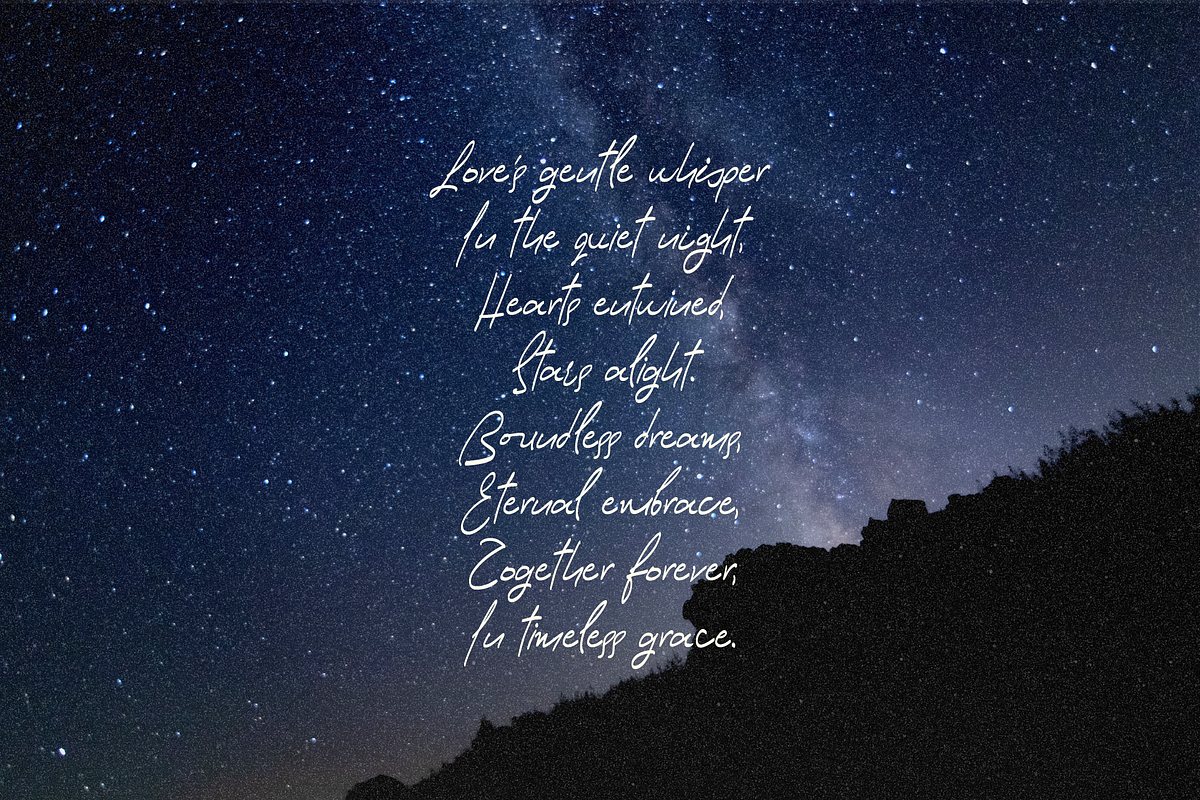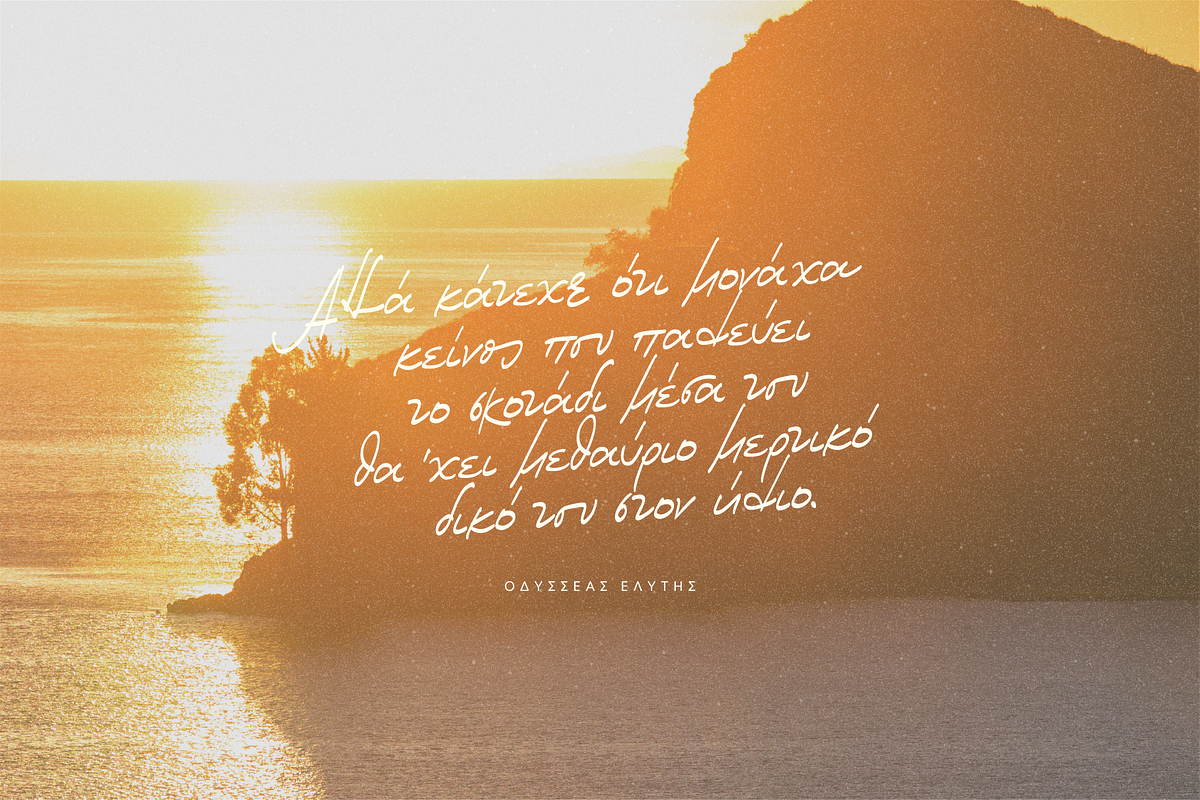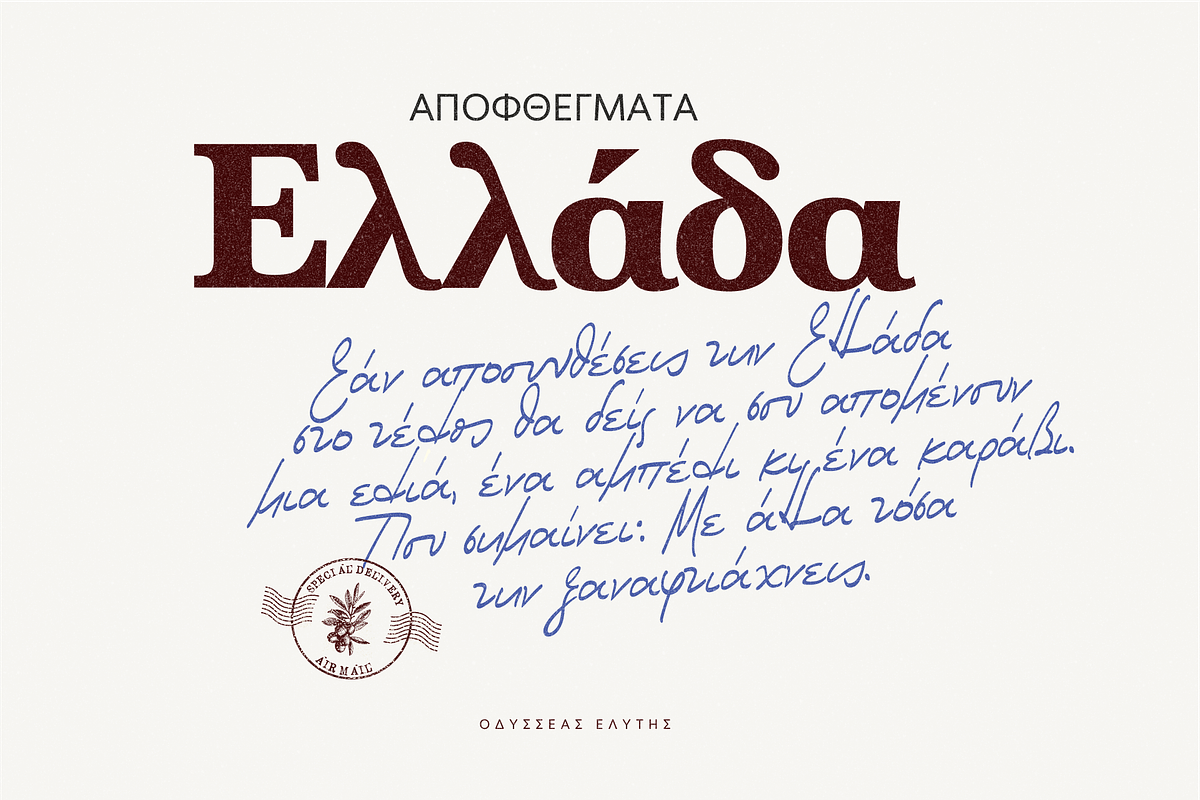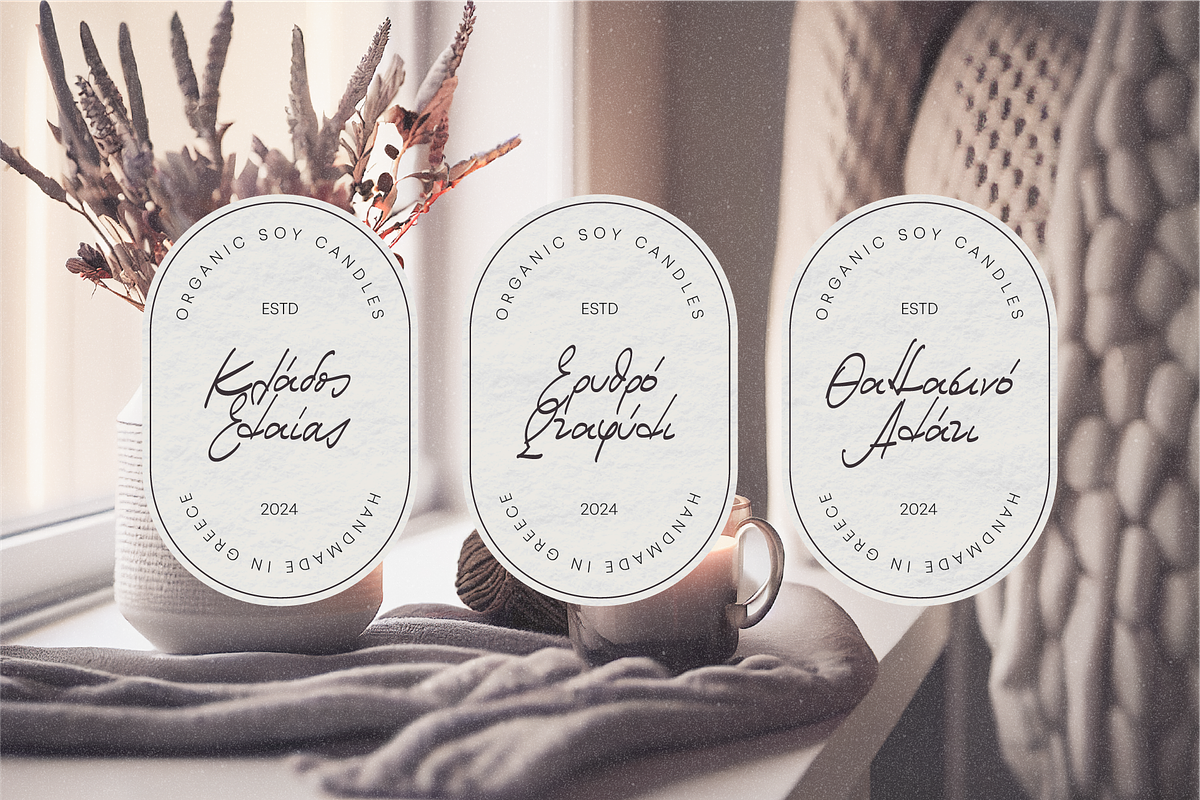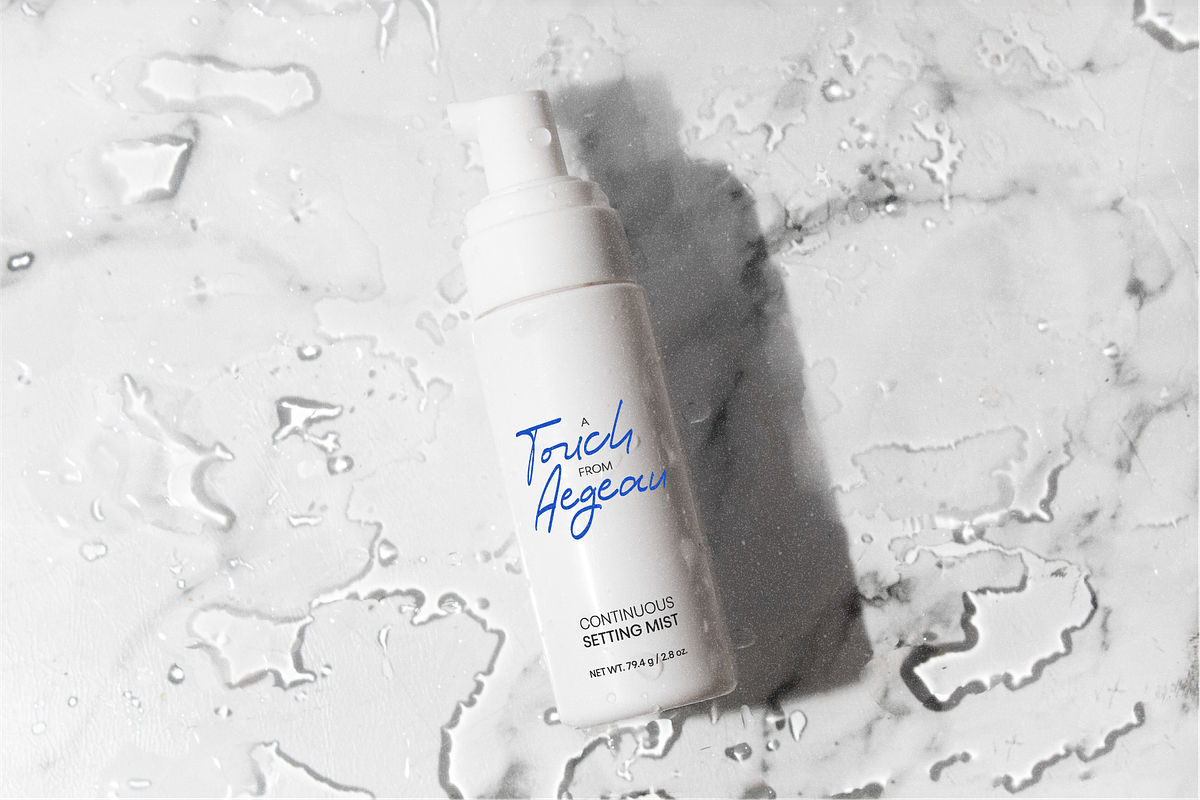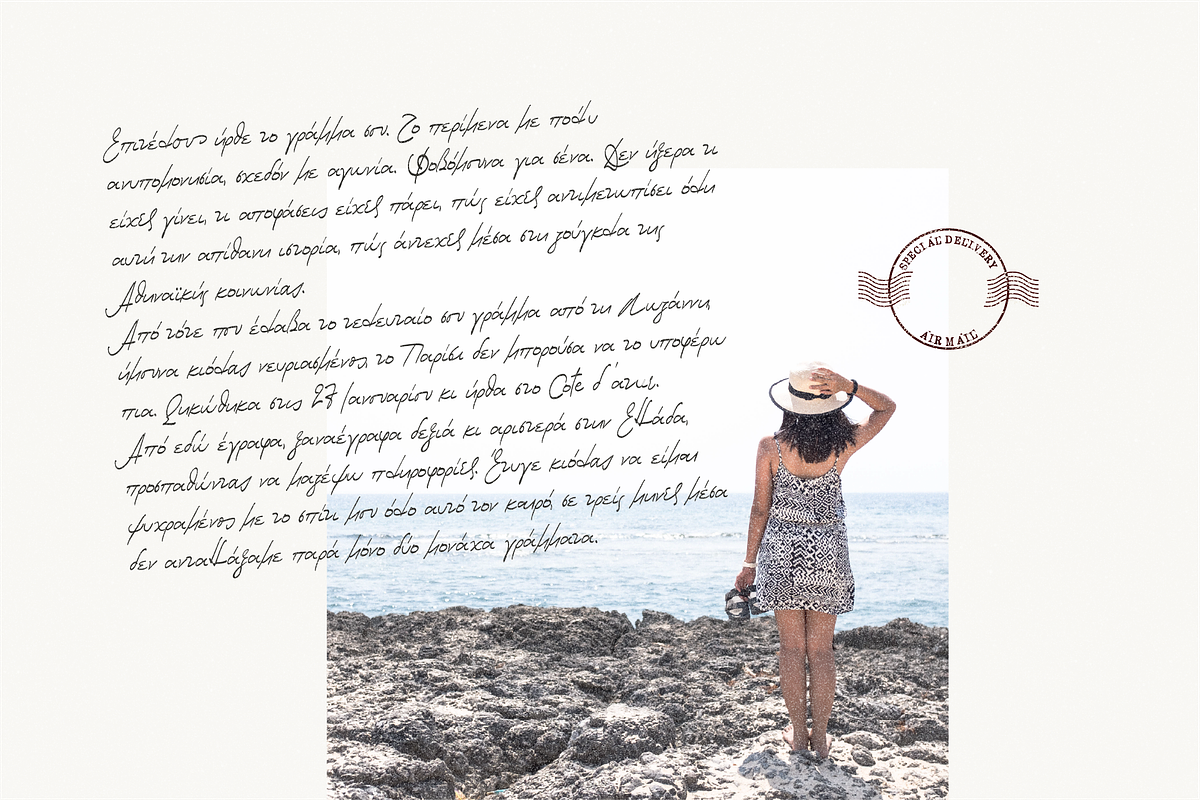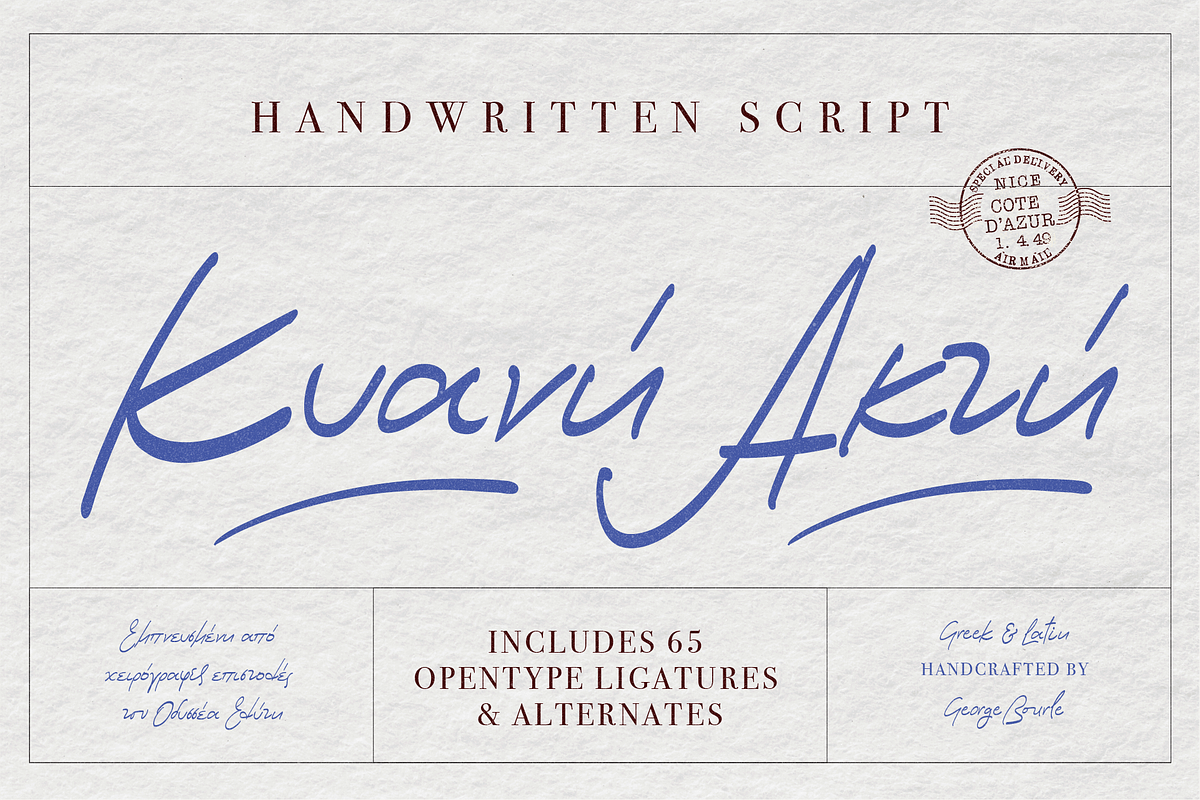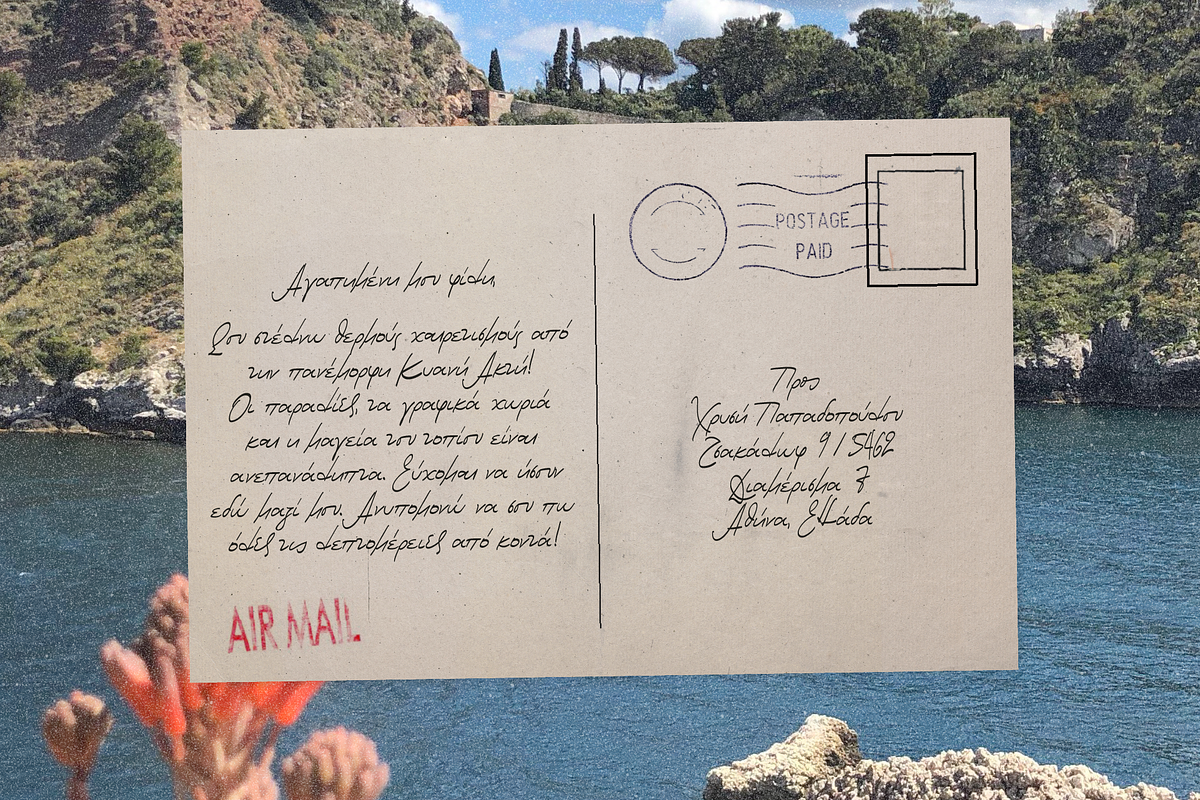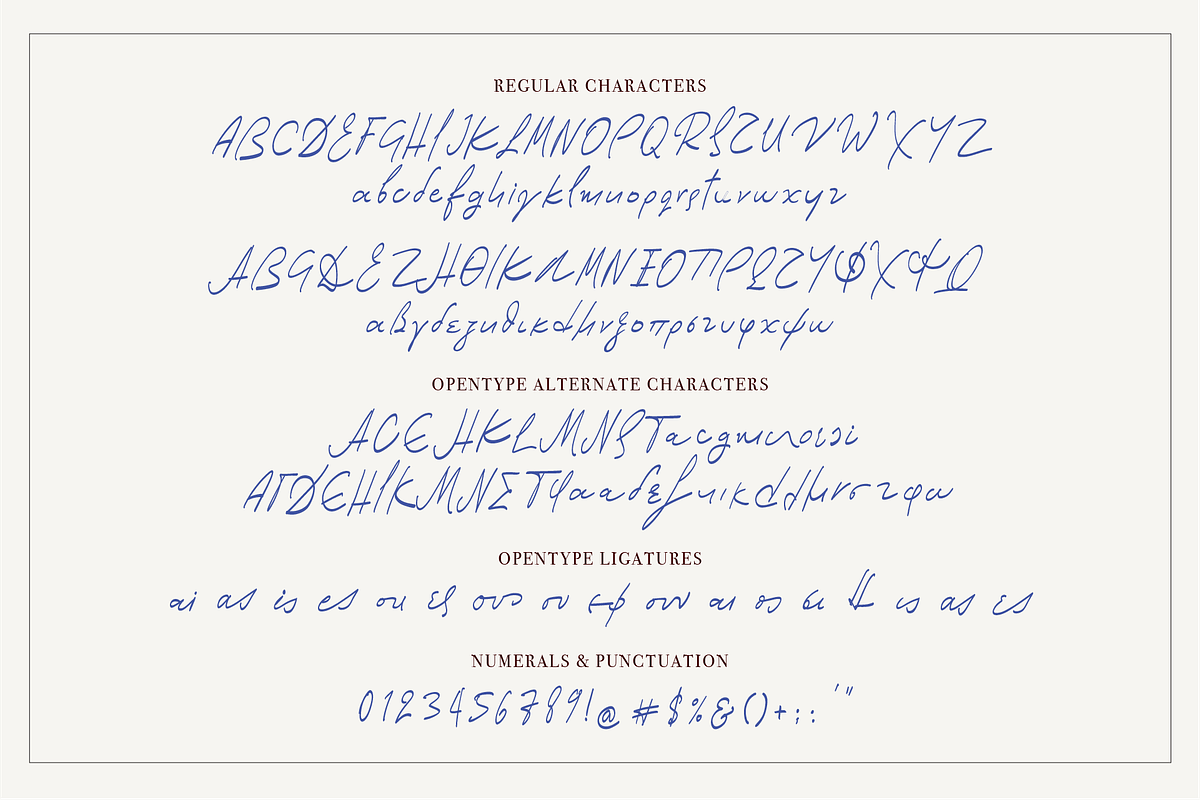
Kyani Akti
Introducing Kyani Akti font – A Tribute to the Handwriting of Odysseas Elytis
I am thrilled to present Kyani Akti (Cote d’Azur), a unique and organic script font inspired by the beautiful handwriting of the great Greek writer Odysseas Elytis. Elytis, known for his evocative poetry and deep connection to Greek culture, has influenced countless readers with his words. Now, his distinct handwriting style can bring a touch of his literary magic to your designs.
Kyani Akti script font includes 65 OpenType ligatures and alternates, providing you with a versatile tool to create stunning and authentic typography. Whether you’re designing invitations, posters, branding materials, or digital content, Kyani Akti will add a personal and artistic touch to your projects.